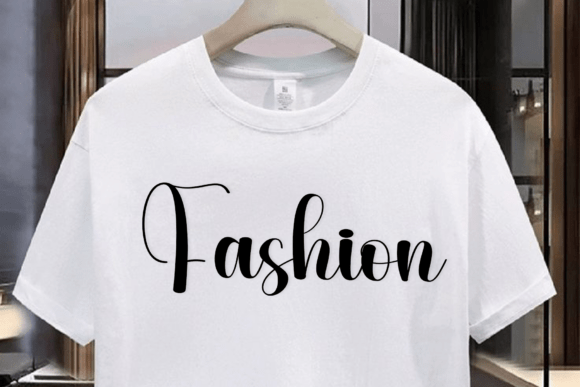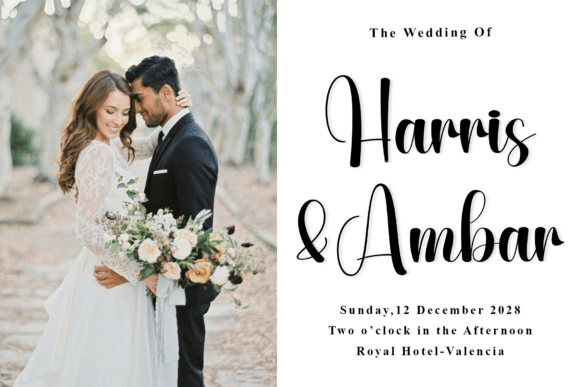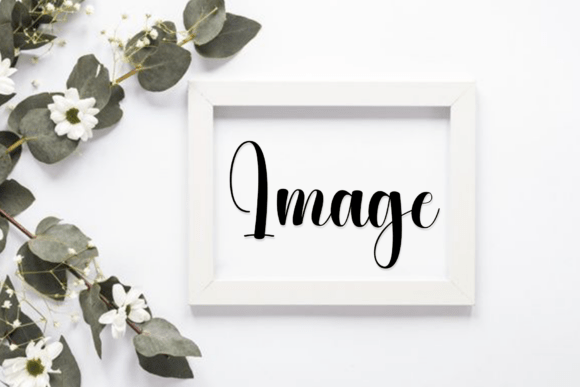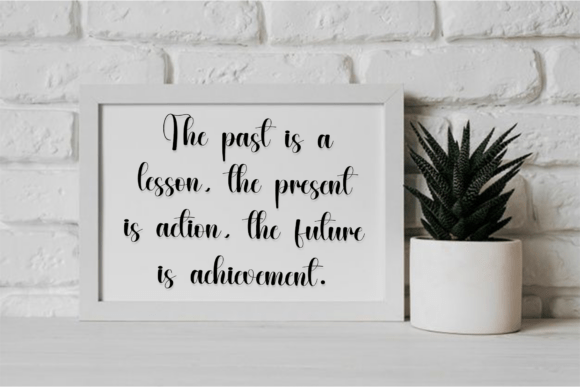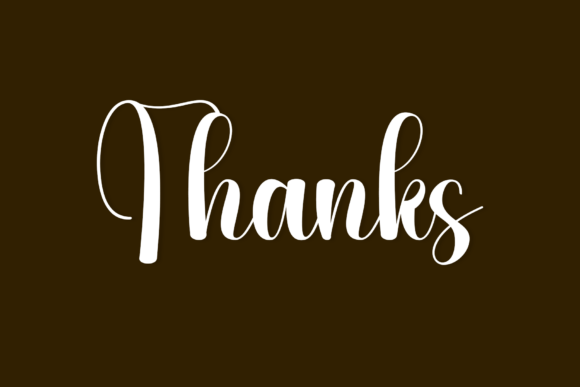
Indulge in the Elegance of Chocolate Font: The Ultimate Choice for Luxury Branding and Romantic Stationery
Are you looking for a typeface that exudes sophistication, elegance, and a touch of artisanal charm? Look no further than the Chocolate font, a stunning handwritten script typeface that captures the essence of high-end calligraphy. With its smooth, flowing lines and rich, fluid stroke weight, this font is perfect for designers and crafters seeking to add a premium, “handmade” touch to their projects.
The Characteristics of Chocolate Font
The Chocolate font boasts elegant, sweeping loops that dance across the page, evoking the rhythmic grace of luxury calligraphy. Its rich, fluid stroke weight feels both artisanal and sophisticated, making it an ideal choice for a wide range of design applications. Whether you’re creating luxury branding, boutique packaging, or romantic stationery, this font is sure to impress.
The Perfect Choice for Luxury Branding and Romantic Stationery
The Chocolate font is the ultimate choice for designers seeking to create a sense of warmth and intimacy in their projects. Its elegant, cursive lines make it perfect for artisan food labels, beauty products, or wedding invitations, where a personal touch is essential. With this font, you can create stunning visual experiences that feel both modern and classic.
Pairing Chocolate Font with Other Typefaces
For a truly stunning visual experience, pair the Chocolate font with a clean, wide-tracked serif typeface. This “modern-classic” combination creates a beautiful contrast that adds depth and sophistication to your design. Whether you’re designing a logo for a chic café or a personalized gift card, this pairing is sure to make a lasting impression.
The Benefits of Using Chocolate Font
Using the Chocolate font in your designs offers a range of benefits, including:
• Elegance and sophistication: The Chocolate font exudes luxury and refinement, making it perfect for high-end branding and stationery.
• Artisanal charm: The font’s rich, fluid stroke weight and elegant loops evoke a sense of handmade craftsmanship.
• Warmth and intimacy: The Chocolate font adds a personal touch to your designs, making them feel more approachable and inviting.
• Versatility: This font is suitable for a wide range of design applications, from luxury branding to romantic stationery.
Design Inspiration with Chocolate Font
Whether you’re a designer, crafter, or DIY enthusiast, the Chocolate font offers endless inspiration for your projects. Here are a few ideas to get you started:
• Luxury branding: Use the Chocolate font to create stunning logos, business cards, and letterheads for high-end clients.
• Wedding stationery: Add a touch of romance and elegance to your wedding invitations, save-the-dates, and thank-you cards.
• Artisan food labels: Create beautiful labels for specialty foods, such as baked goods, chocolates, and gourmet cheeses.
• Beauty products: Use the Chocolate font to create packaging and branding for skincare products, perfumes, and cosmetics.
In conclusion, the Chocolate font is a versatile and elegant typeface that offers a range of creative possibilities for designers and crafters. With its smooth, flowing lines, rich stroke weight, and PUA encoding, this font is perfect for luxury branding, romantic stationery, and a wide range of other design applications. Indulge your designs in the smooth, flowing elegance of the Chocolate font and make a lasting, sweet impression.